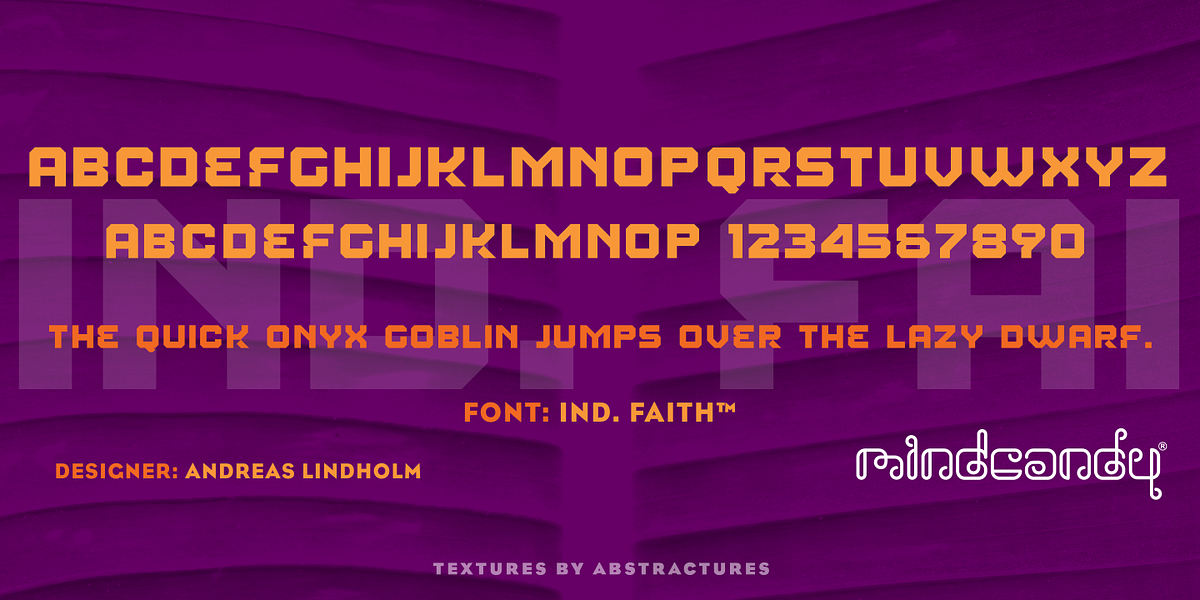
Ind. Faith™
This geometric sans serif font has a distinct techno feel due to its sharp angles and octagonal shapes. It is well-suited for branding and headlines, especially in the technology industry.